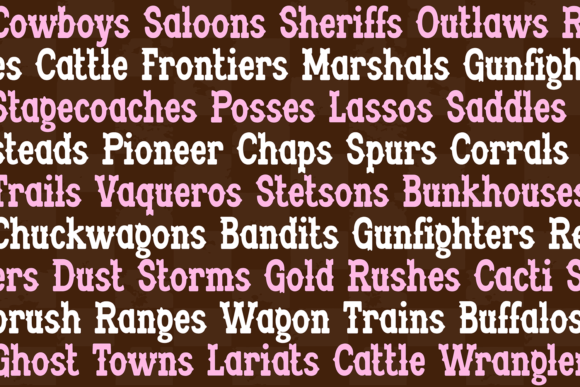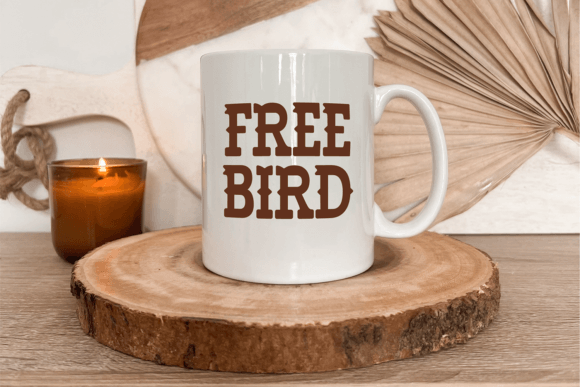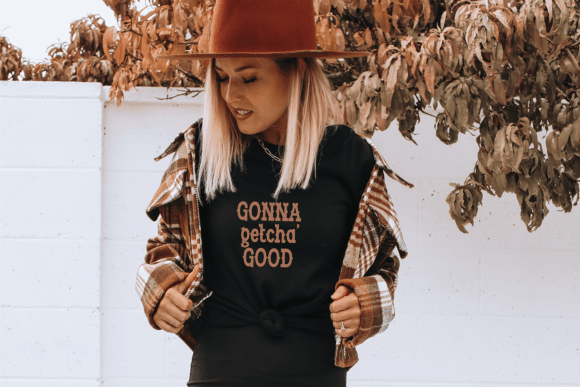
Rodeo Spurs Font
Rodeo Spurs is an incredibly cool and unique slab serif font. It has a modern yet whimsical style and it will undoubtedly immerse your designs into a magical world.